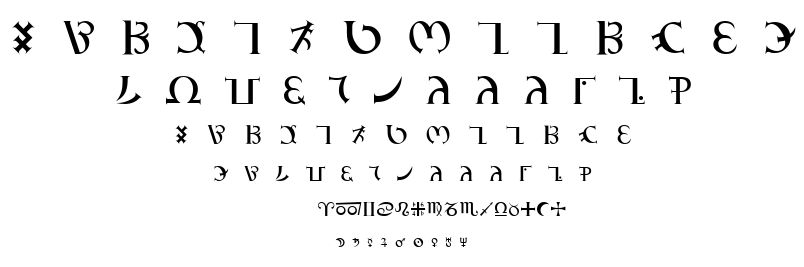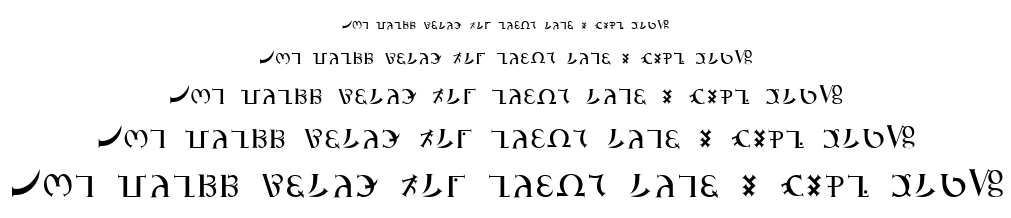
GD_Enochian font has been specifically designed for use with Golden Dawn Enochian activities. View and print out the GD_Enoch.rtf file for symbol location/name.